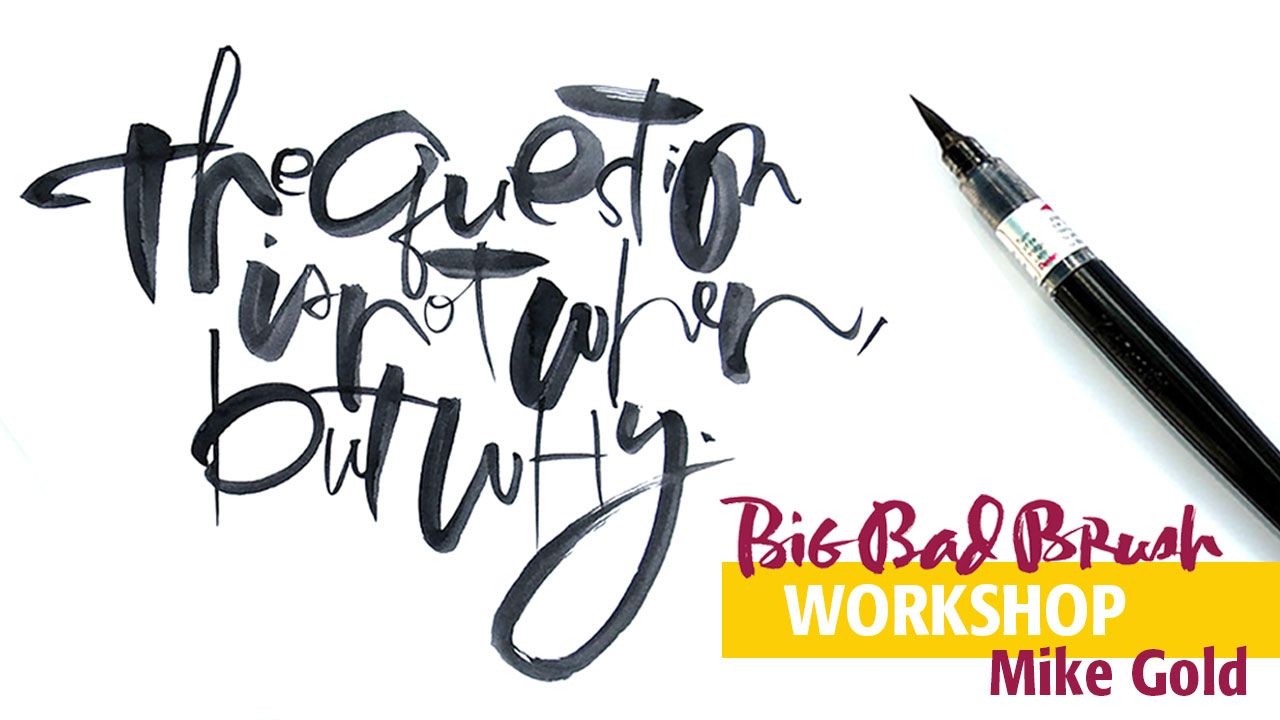
Letter along with Mike!
The pointed brush is a great tool to explore both traditional and non-traditional lettering and has applications for both commercial and fine art. Thanks to the mini-session held back in November 2025 and to build on Mike's presentation, we are offering two, 3-hour sessions in March 2026.
We will dive deeper into both synthetic and natural hair brushes, with exercises that demonstrate the many possibilities for brush lettering.
Brush aside the chores and join us for this free-flowing workshop!
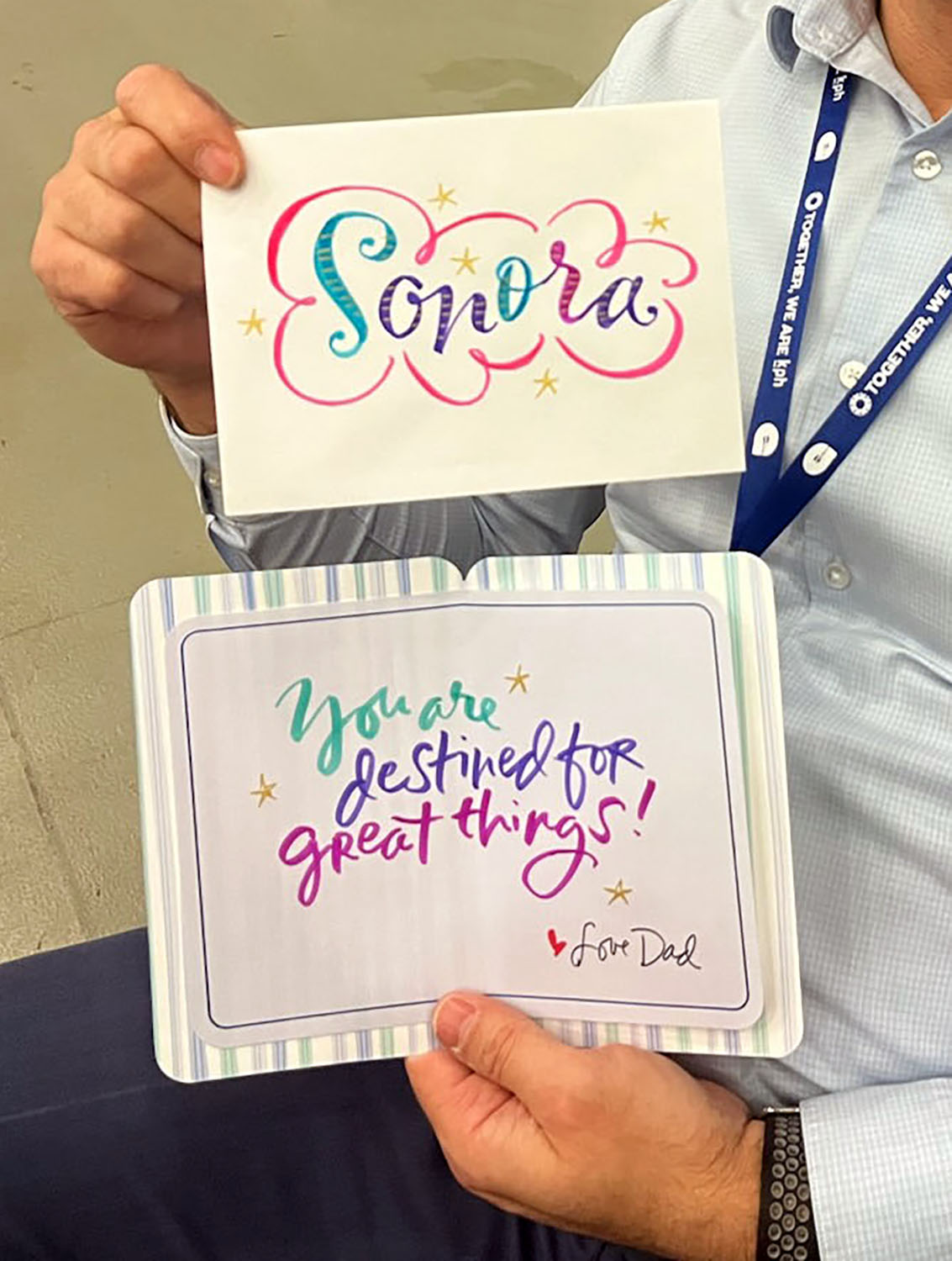
Who this session is for:
The workshop is designed for lettering artists, calligraphers, and designers who are using or want to use brush lettering in their work. This is not a beginner-level workshop, so it will help to have some lettering experience and basic understanding of the fundamentals.
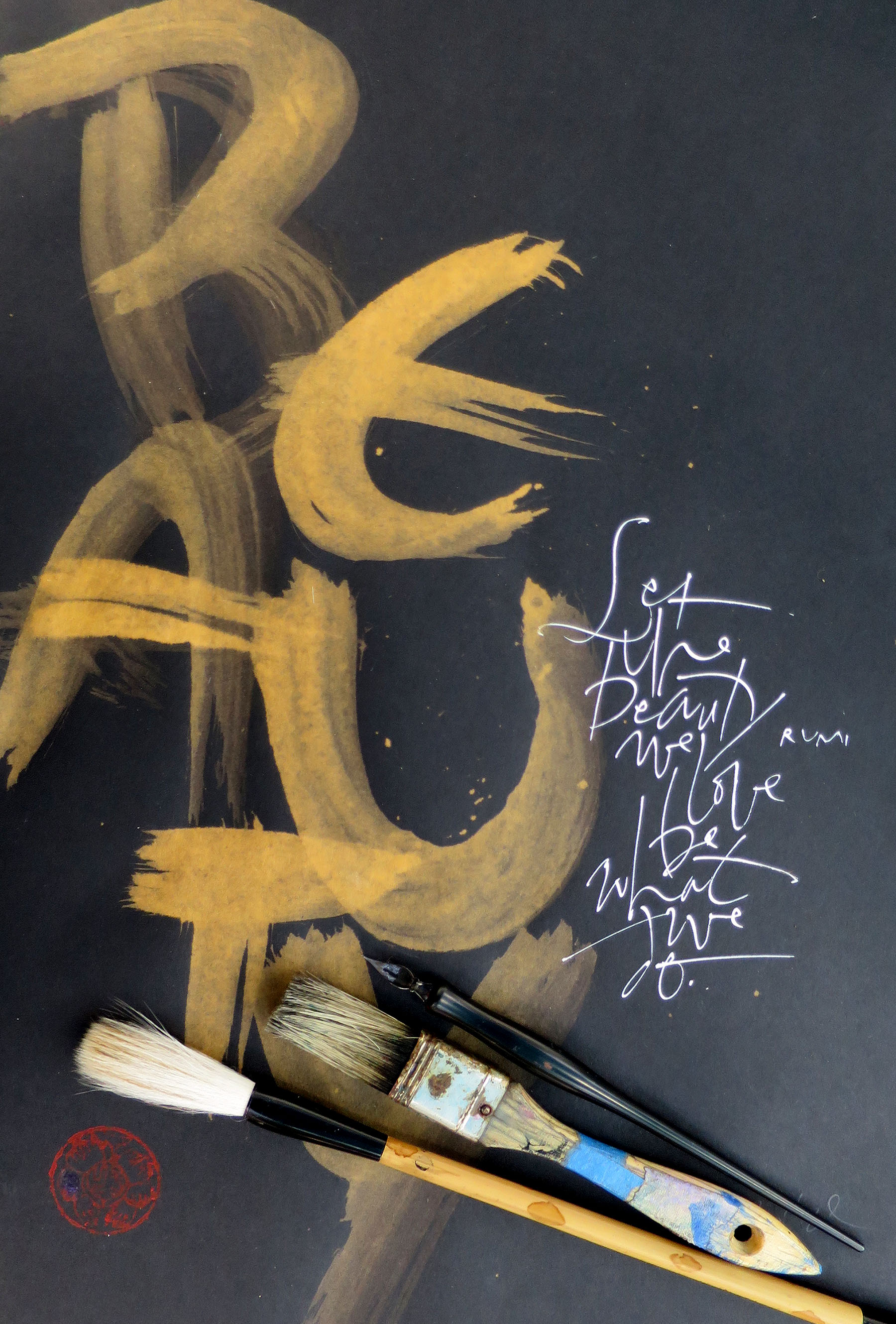
About Mike
Mike Gold worked as a commercial lettering designer for over 35 years, mostly in the social expressions business. But his real passion is exploring the corridors of calligraphy that have been less traveled, the path where words and letters are design elements with which to play with line, shape and form, where creating a visual statement is more important than writing a readable text. In both his professional and personal art, Mike breaks traditional rules to create contemporary, non-traditional work.
Mike has an M.A. in Visual Communications and has studied with many outstanding lettering and design masters over the years. Mike has taught around the country and at several international calligraphy conferences. His personal work has been featured in Letter Arts Review many times over the past 25-plus years. He has been a juror for the Letter Arts Review annual and his work is in many private collections, including the Berlin Calligraphy Archive. He is the author of Lines to Live By (available through John Neal, Bookseller), which is Mike's take on being a non-traditional calligrapher in the 21st century.